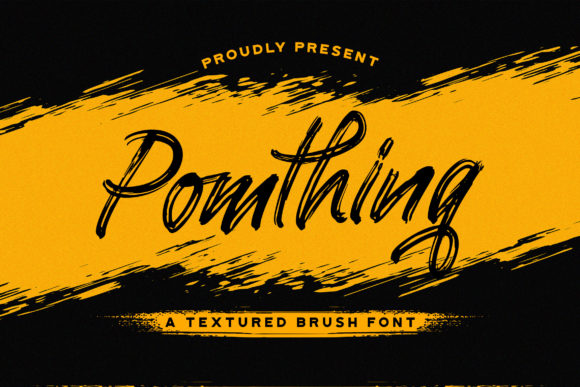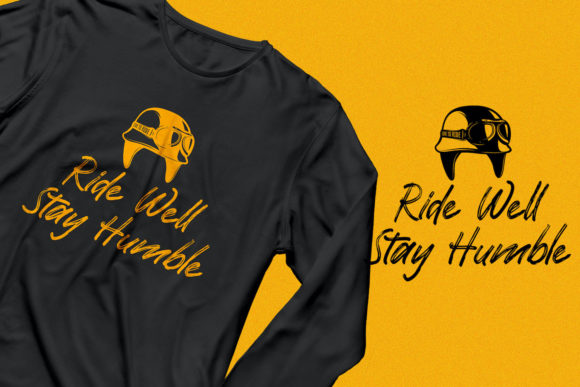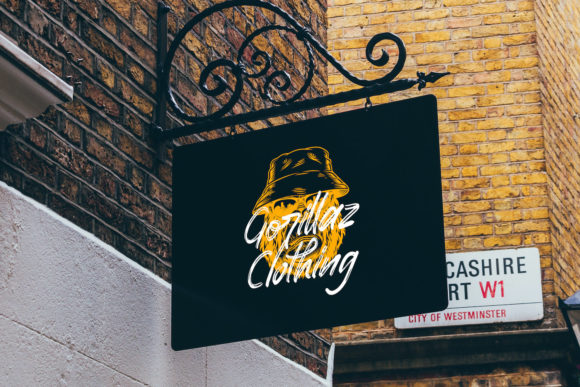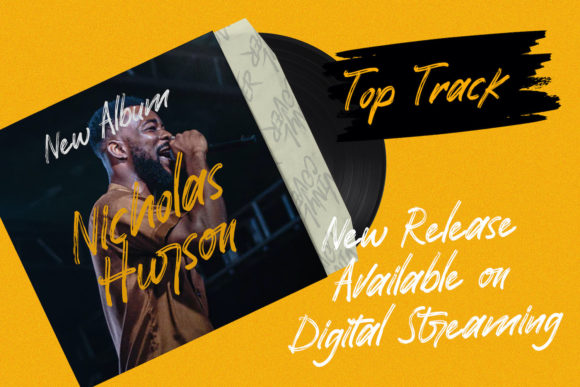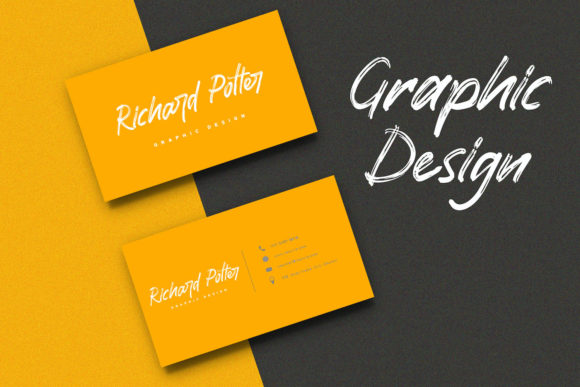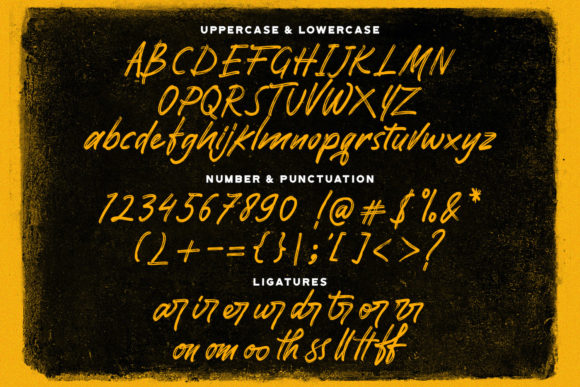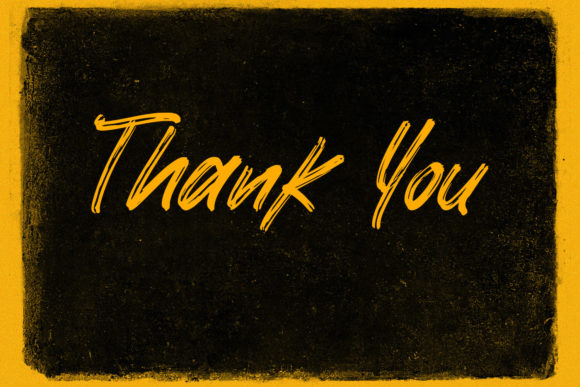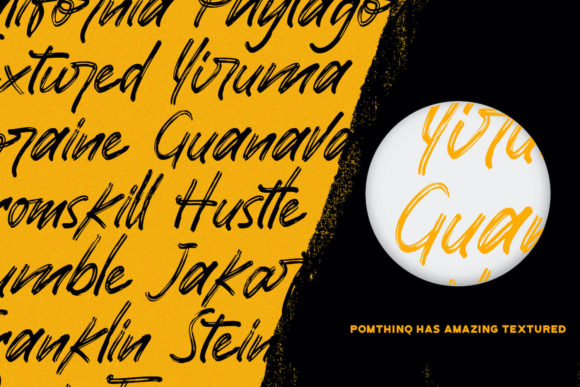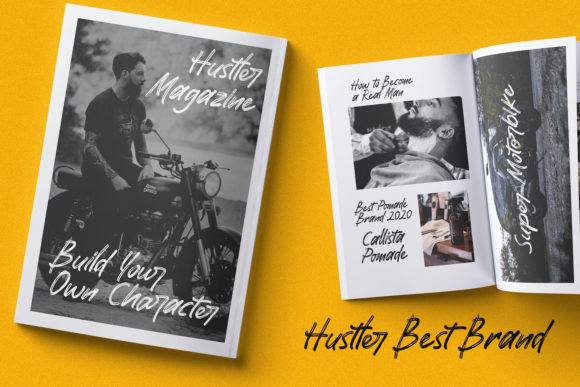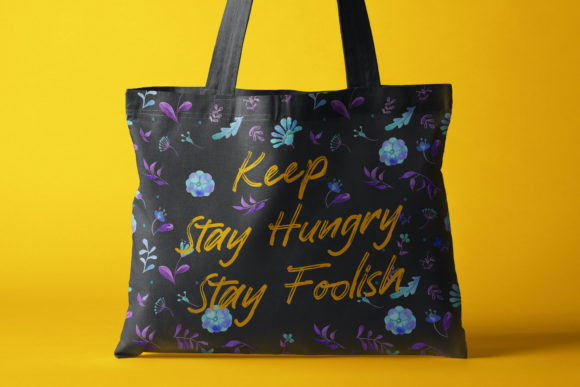
Pomthinq Font
About Pomthinq Font
Pomthinq is a truly remarkable brush script font that captivates with its charm and versatility. Its unique brush strokes create a captivating visual experience, making it a perfect choice for a wide range of design projects. Embrace the beauty of Pomthinq, and witness how it enhances your creative endeavors, turning them into spectacular designs that leave a lasting impression.
With its distinctive brush script style, Pomthinq brings a touch of artistic flair to your designs. Whether you’re crafting logos, branding materials, social media graphics, or any other project, this font elevates each creation with its expressive and dynamic appearance.
Pomthinq’s versatility allows it to adapt seamlessly to various design themes and styles. From bold and modern to whimsical and playful, this font effortlessly harmonizes with your creative vision, giving your designs a unique and distinctive edge.
The remarkable brush strokes of Pomthinq create an authentic handcrafted feel, adding a touch of warmth and personality to your designs. It makes your work stand out, showcasing your creativity and artistic sensibility.
Incorporating Pomthinq into your designs allows you to explore endless creative possibilities. Its versatility inspires you to experiment with different layouts, color schemes, and combinations, empowering you to create stunning and eye-catching designs.
Moreover, Pomthinq’s expressive nature ensures that your message is conveyed with emotion and impact. It adds a sense of depth and liveliness to your text, making your designs truly captivating and engaging.
In summary, Pomthinq is more than just a font; it’s a remarkable brush script that sparks creativity and adds a touch of artistry to your designs. Fall in love with its versatile style, and watch as it transforms your projects into spectacular creations that resonate with charm and originality. Embrace the beauty of Pomthinq, and let it be the brush that paints your imagination, bringing your creative visions to life in extraordinary ways that captivate and inspire.